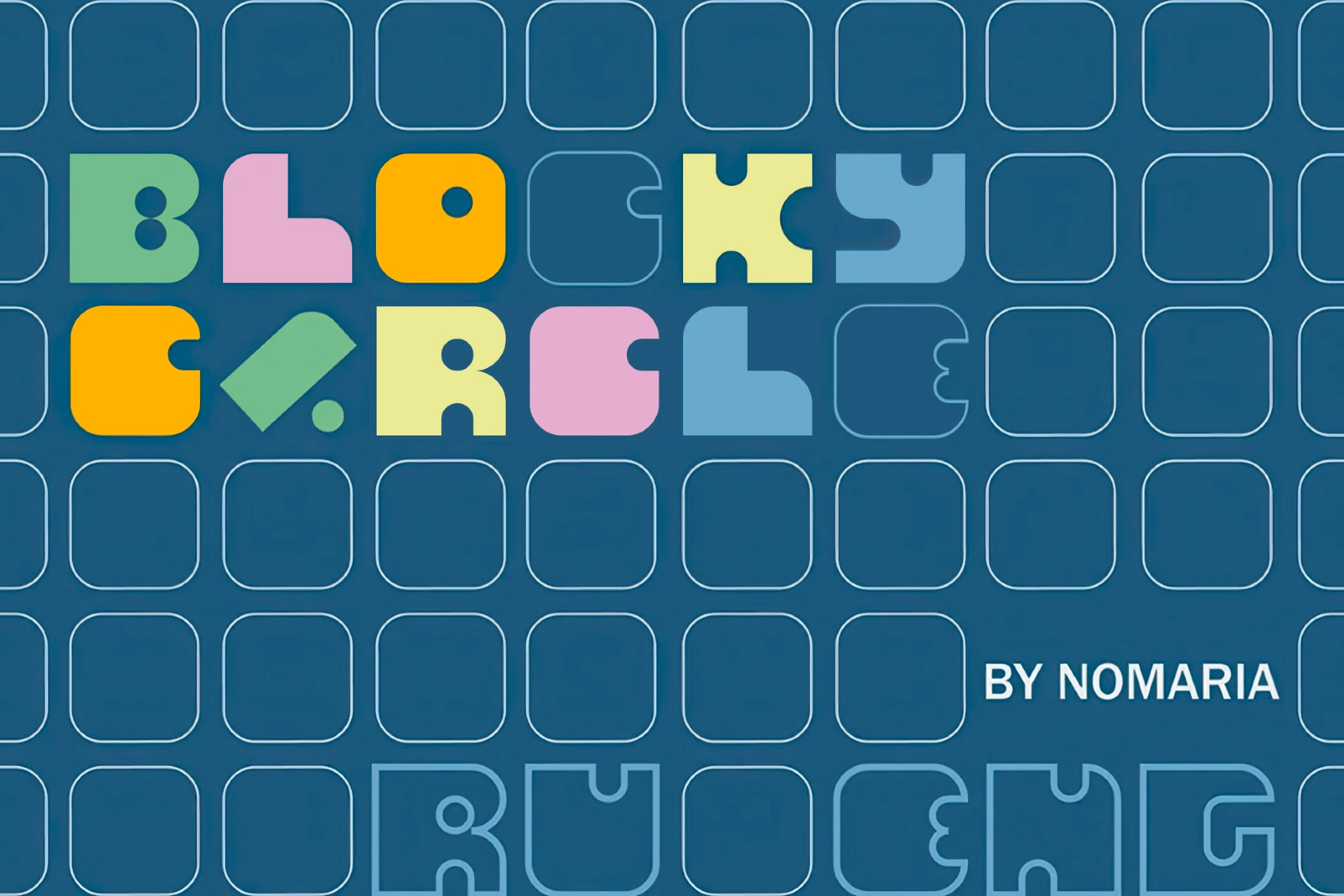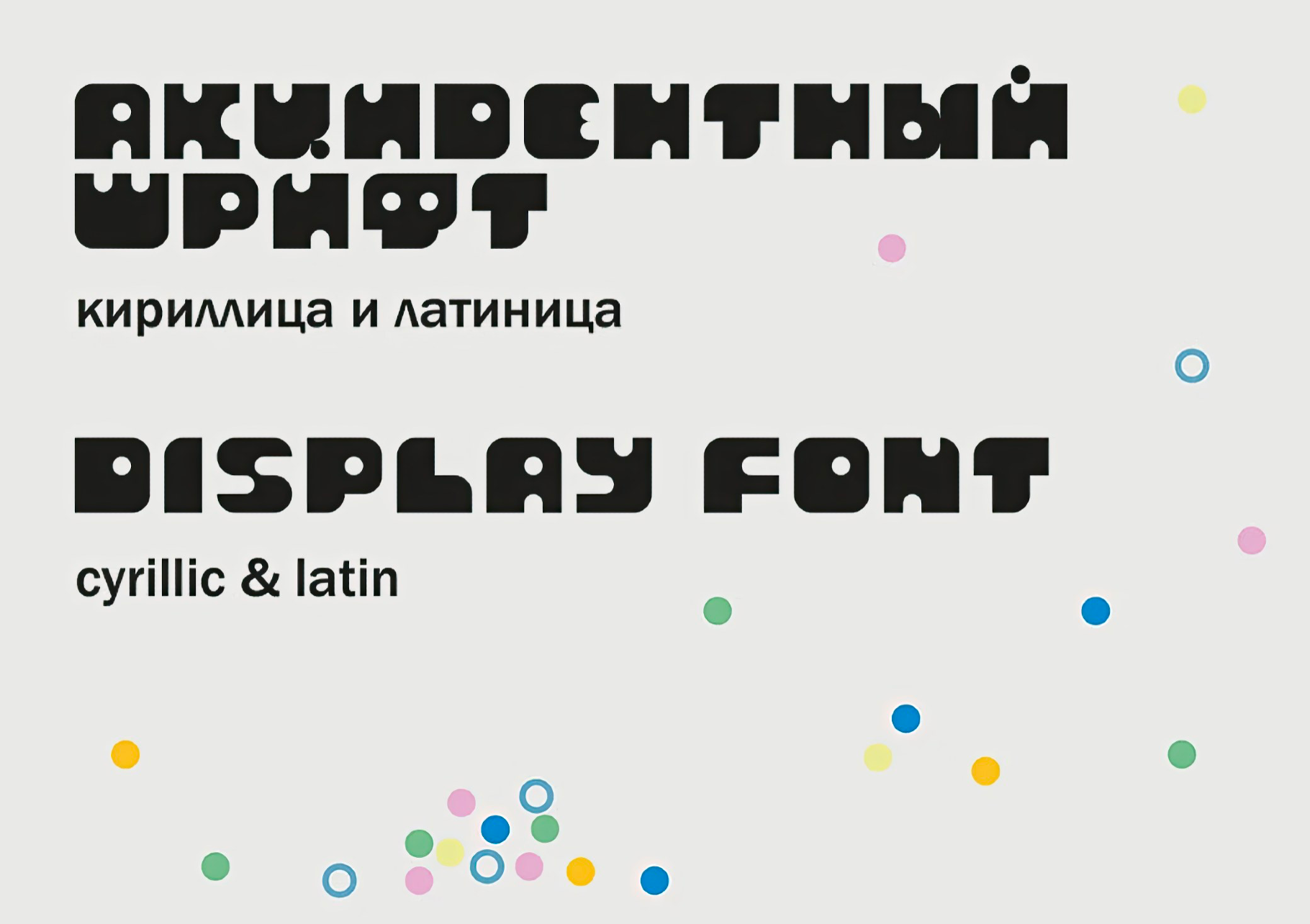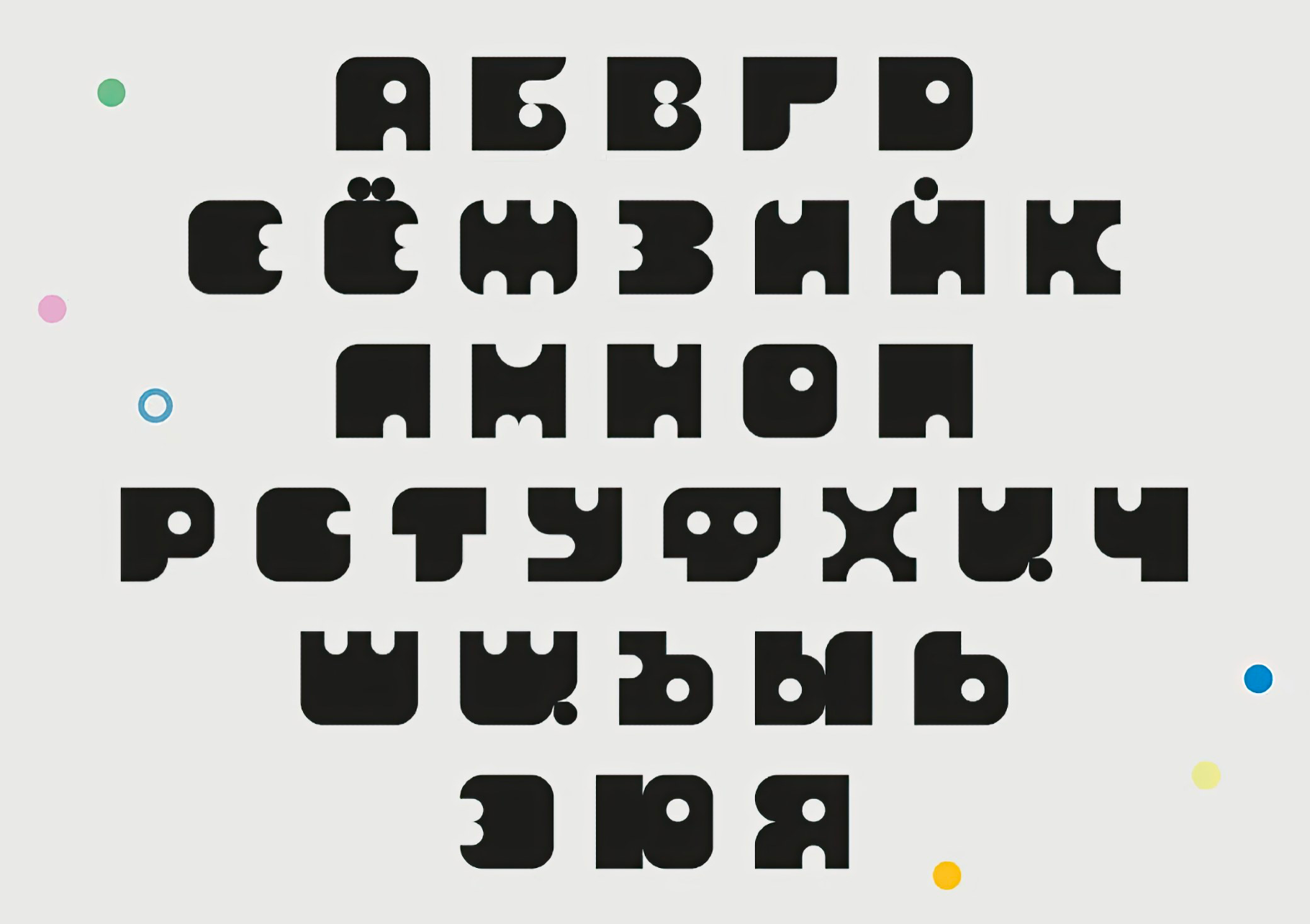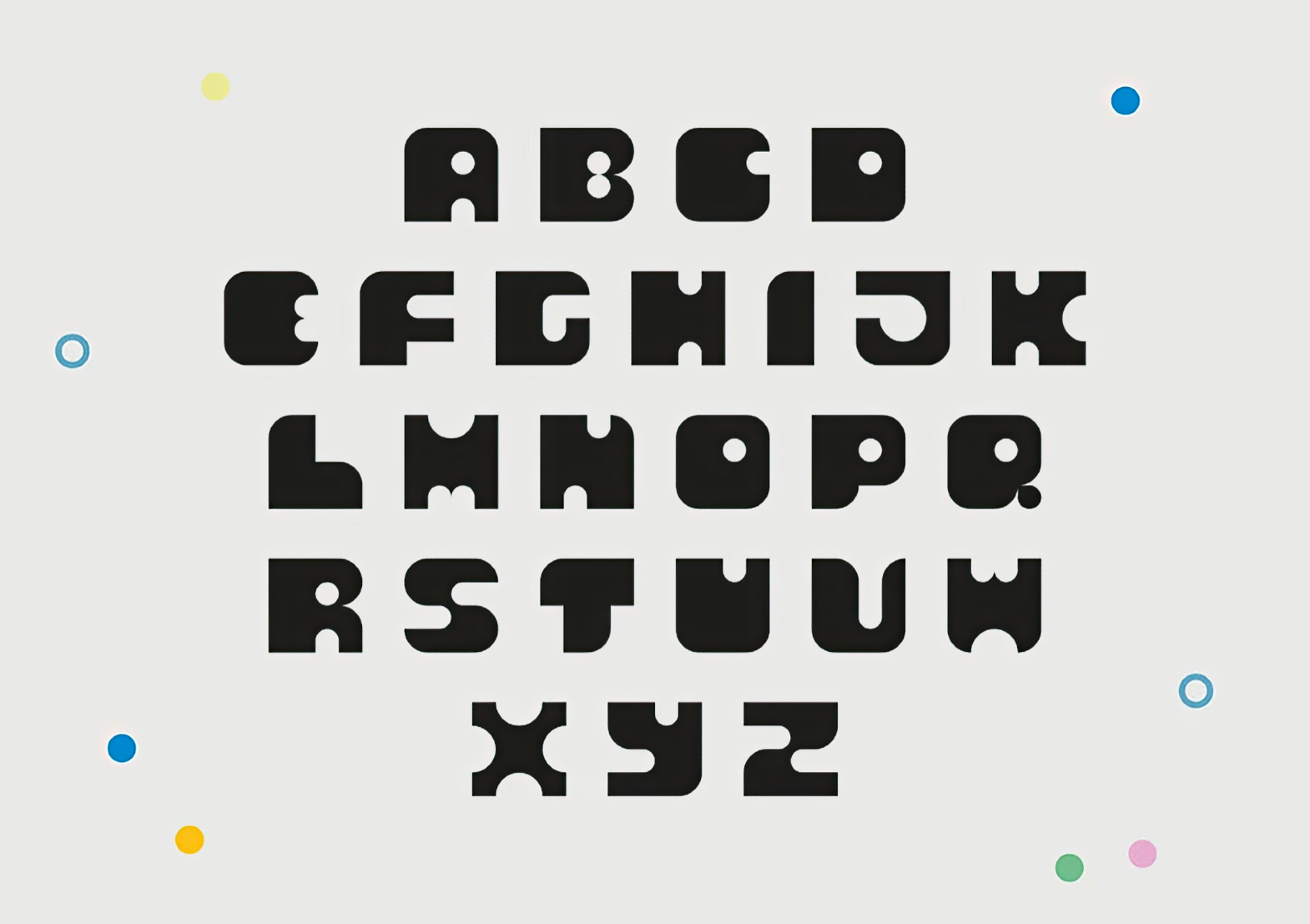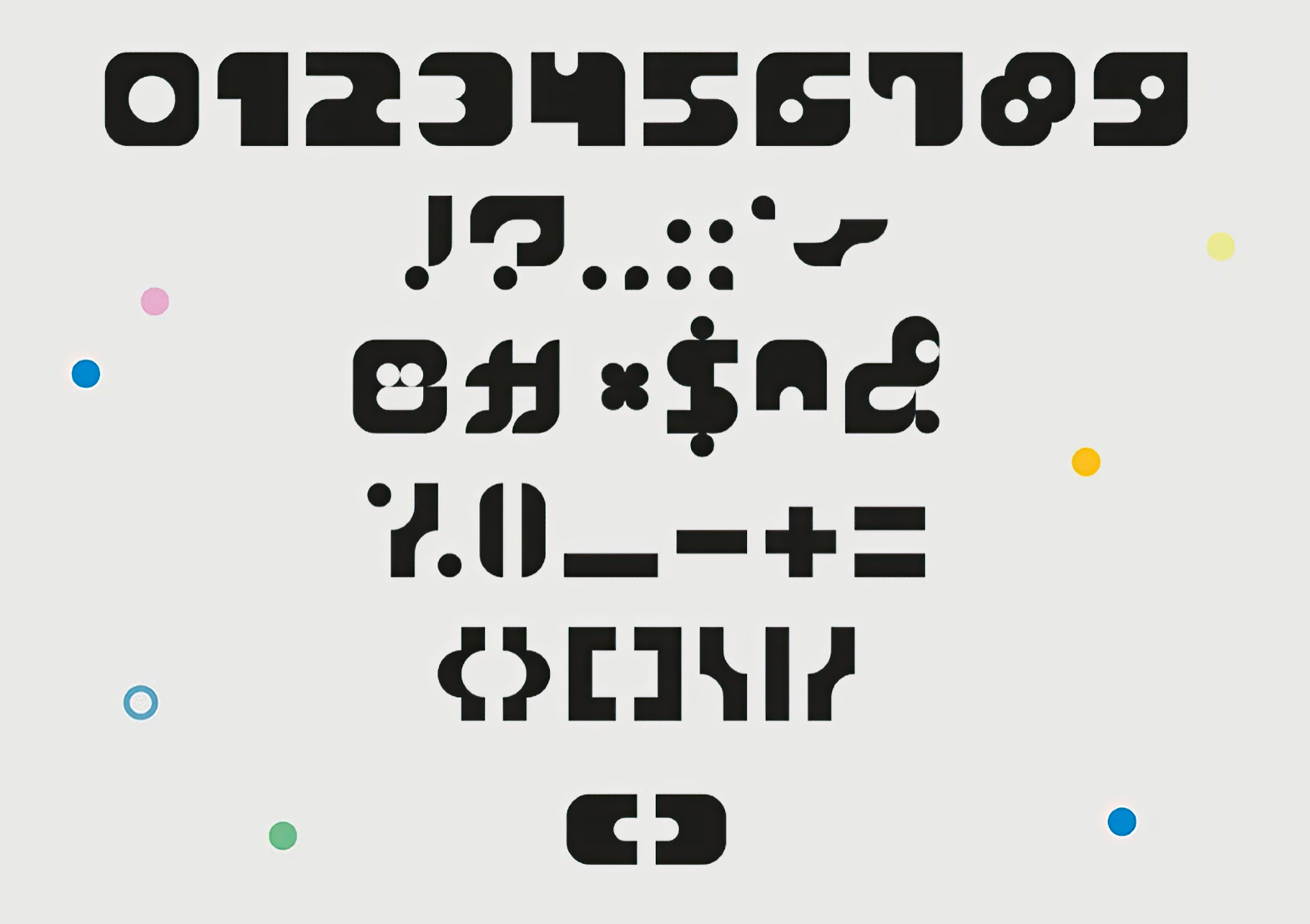
Blocky Circle Font
Blocky-Circle
Blocky Circle arranges chunky geometric forms into a playful, rounded grid of the Bauhaus print experiments. This all-caps reads best with short words and acronyms, which makes it a natural fit for game and app logos, youth-focused branding, posters, packaging, editorial headlines, event graphics, and landing-page titles.
- Uppercase Latin letters A–Z.
- Numbers and punctuation.
- Multilingual support across basic Latin and Cyrillic scripts.